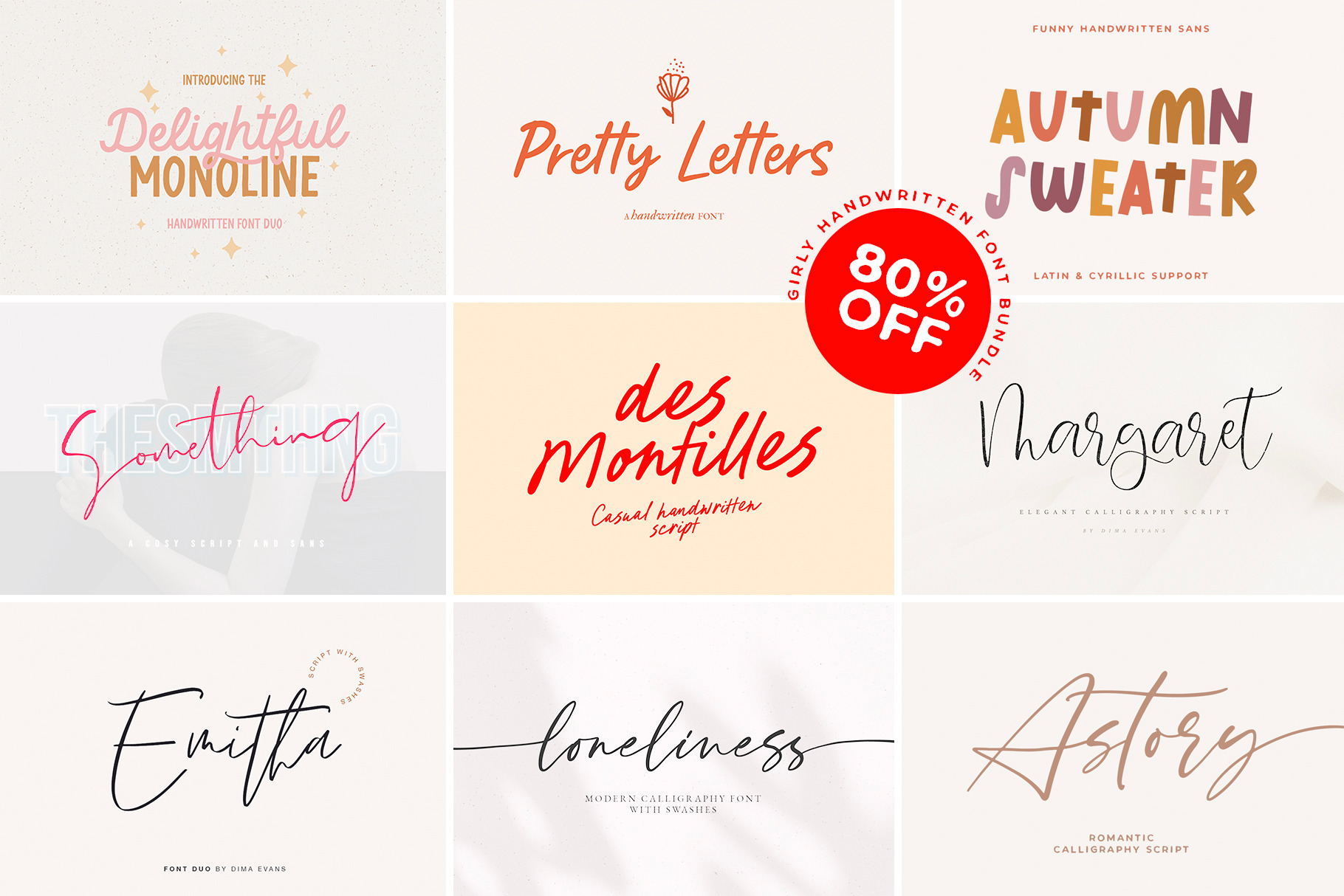
Girly Handwritten Font Bundle
Girly Handwritten Font Bundle - 9 feminine script fonts in one pack
This bundle includes 9 handwritten fonts designed for feminine branding, wedding stationery, packaging, social media graphics, and aesthetic projects. Inside you’ll find a mix of signature scripts, casual handwriting styles, and modern calligraphy everything you need to create romantic, personal, and stylish typography.
- Logos & brand identity
- Wedding invitations & stationery
- Instagram / Pinterest content
- Packaging & boutique labels
- Feminine & lifestyle branding
- Creative aesthetic projects